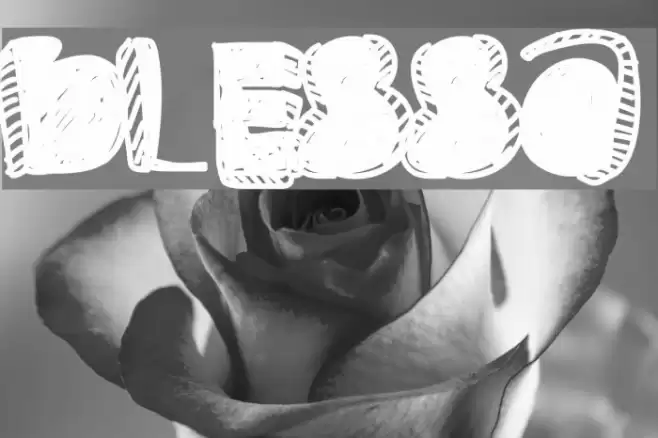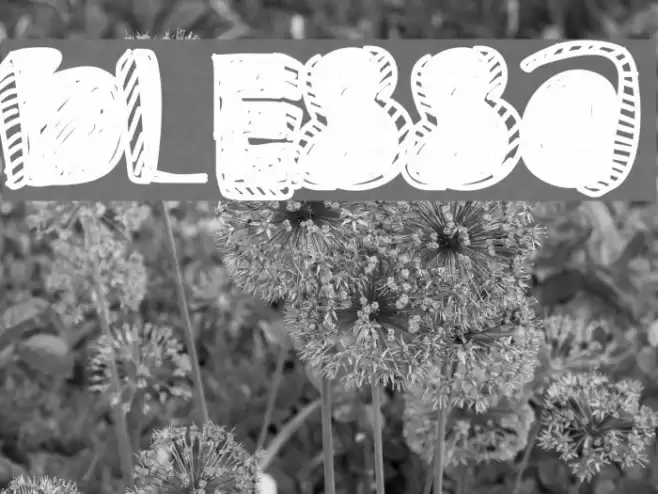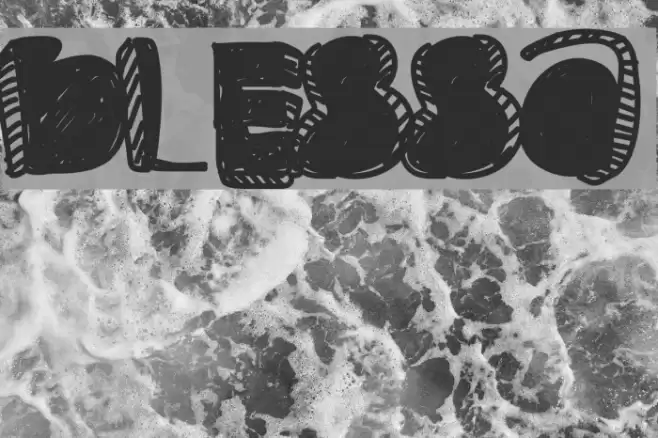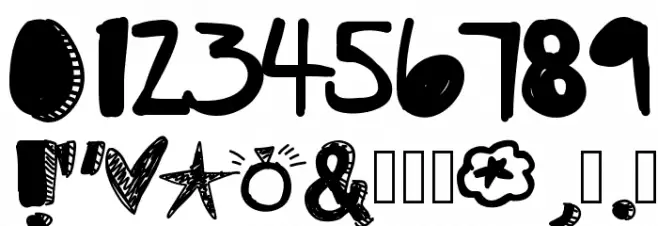
Blessa Font
Blessa Description
This font features a playful and bold style with a hand-drawn aesthetic. Each character is filled with intricate patterns, giving it a textured and artistic look. The letters are rounded and have a whimsical, cartoonish feel, making them stand out with their unique and creative design. The numbers and special characters follow the same playful theme, adding to the overall cohesive appearance. This font is ideal for projects that require a fun and engaging visual element, such as children's books, posters, or creative branding. Its decorative nature makes it perfect for capturing attention and conveying a sense of joy and creativity.
A playful, hand-drawn font with bold, textured characters from Uncategorized fonts.